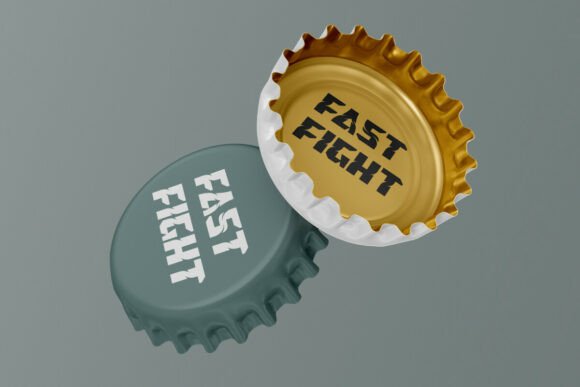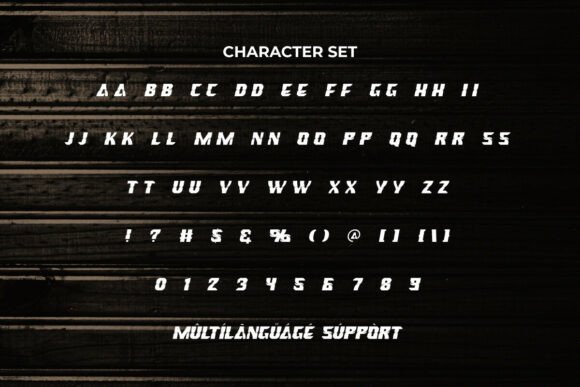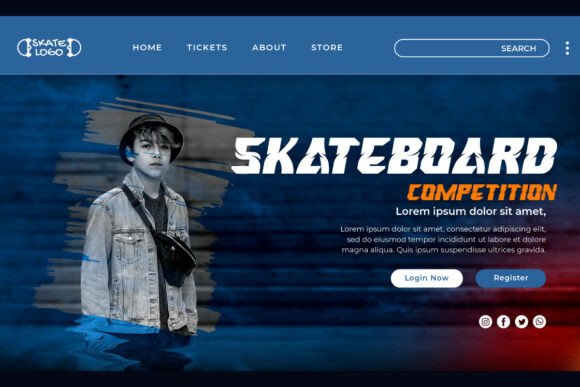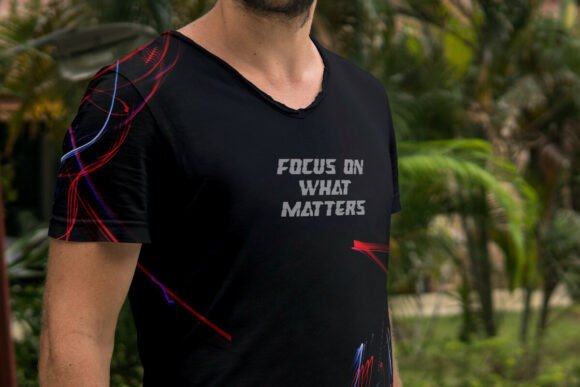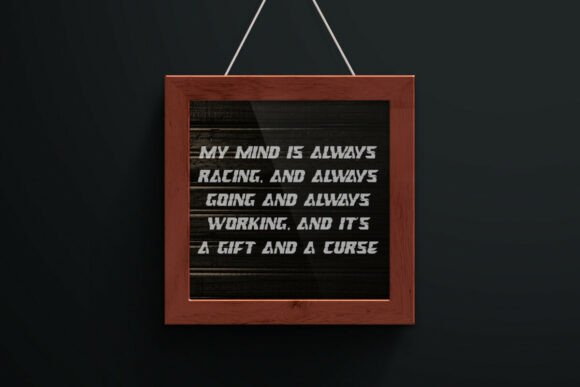
Introduction to Fast Fight Font
Imagine yourself in the midst of a high-stakes racing competition, the roar of engines deafening as you speed down the track. The rush of adrenaline is palpable, and the sheer force of the action is mesmerizing. This is the essence of the Fast Fight Font, a display typeface that embodies the raw energy and unbridled speed of motorsports.
As a valuable resource for designers, the Fast Fight Font offers an unparalleled level of creativity and flexibility. Its distinctive slant and sharp, angled cuts make it instantly recognizable, while its heavy, monolithic letterforms ensure high visibility even at speed. Whether you’re working on a high-quality design project or simply looking for a unique design element, this font is sure to deliver.
Key Features of Fast Fight Font
- Features a unique, bold, and energetic style, perfect for sports, action, and dynamic themes.
- Available in a single weight, ideal for titles, headings, and emphasis in your design resource.
Honest Review: Fast Fight Font
As a designer, I’m always on the lookout for unique and high-quality design resources to elevate my creative projects. The Fast Fight Font is one such resource that caught my attention recently. In this review, I’ll share my honest thoughts on its features, usability, and overall performance.
- Customizable font styles: The Fast Fight Font offers a range of customizable font styles that can be easily applied to various design elements, making it a versatile resource for designers.
- Transparent background: The font’s transparent background feature allows for seamless integration with other design elements, making it ideal for designs that require a high level of detail and nuance.
- Limited character set: The font’s character set is somewhat limited, which may not be suitable for designers who require a wide range of characters for their projects.
- Not suitable for body text: While the font is perfect for headlines and titles, it may not be the best choice for body text due to its unique style and limited legibility.
Overall, the Fast Fight Font is a great addition to any designer’s toolkit, offering a unique and customizable font style that can elevate creative projects. However, its limitations should be carefully considered before using it for body text or projects that require a wide range of characters.
How to Use Fast Fight Font
The Fast Fight Font is a high-quality design resource ideal for creative projects. It offers a unique and bold style, making it perfect for a variety of applications.
Use the Fast Fight Font in combination with other design elements to create a visually appealing design. Experiment with different font sizes and colors to find the perfect look for your project.
The Fast Fight Font is ideal for:
Business cards and marketing materials
Social media graphics and posts
Presentations and reports
Yes, the Fast Fight Font is designed to work well with transparent backgrounds. Since it has a high-quality design and a clear, legible structure, it can be easily layered over other design elements, making it a valuable resource for any design project.